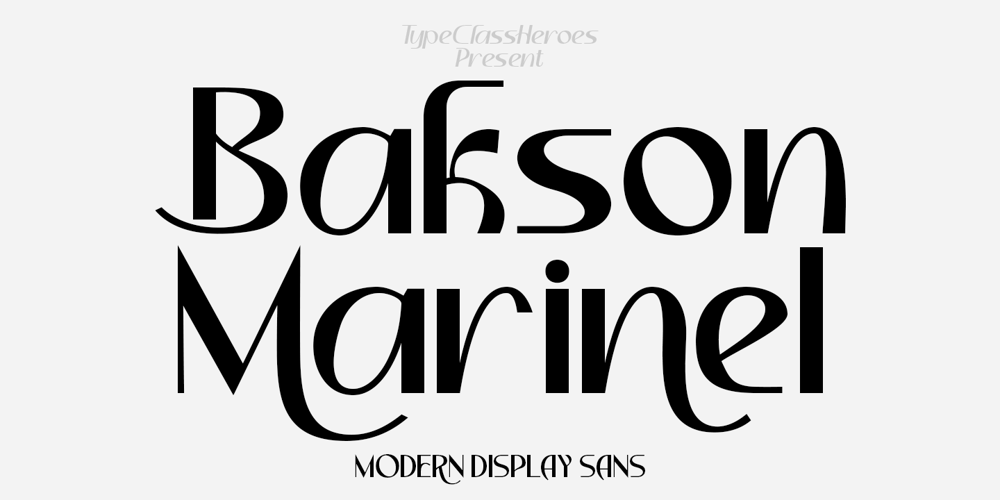
Bakson Marinel
Bakson Marinel font
Bakson Marinel Font Family was designed by Suandana ipandemade and published by TypeClassHeroes. Bakson Marinel contains 1 styles and family package options. Bakson Marinel is a modern display sans, simplistic, high-contrast sans that is at home in high-end fashion and cultural environments that you can explore and combine. use this font for any branding, product packaging, invitation, fashion, label, poster, logo etc.Feature Uppercase & Lowercase Number & Symbol International Glyphs Multilingual support Alternative Ligature Hope you enjoy it.